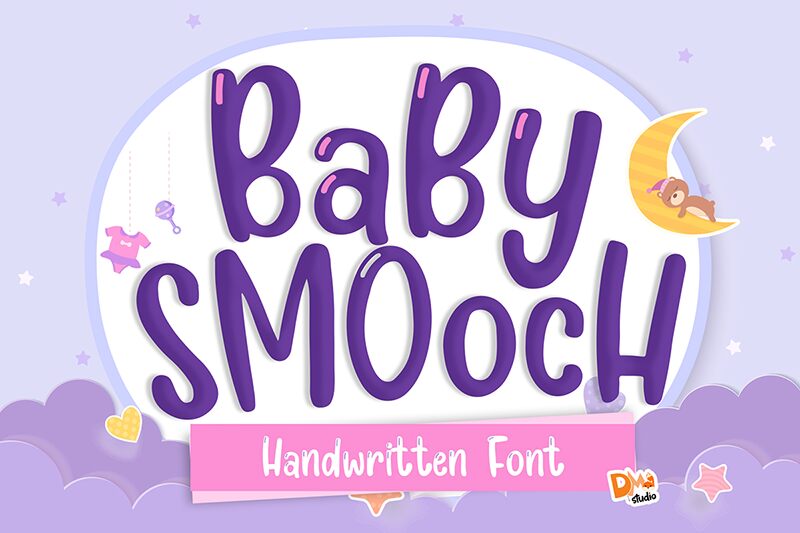
Baby Smooch font is a free cartoon typeface by DM Letter Studio – Dimas Prasetyo. A charming handwritten typeface, Baby Smooch exudes a friendly and youthful personality. Its playful style and informal vibe are inviting and easily interpreted. Retain audience attention with Baby Smooch’s warmth and kid-like energy.
Using Baby Smooch is a surefire way to charm audiences of all ages through school stationery, classroom boards, and children’s reading material. From comic books and animated video subtitles to product packaging and websites, Baby Smooch goes perfectly almost anywhere. Don’t hold back on invitations, posters, banners, or even social media posts.